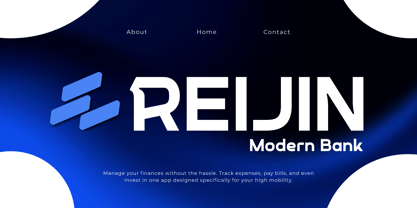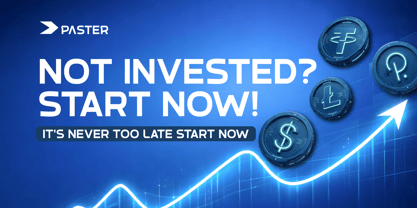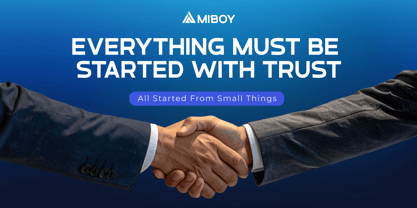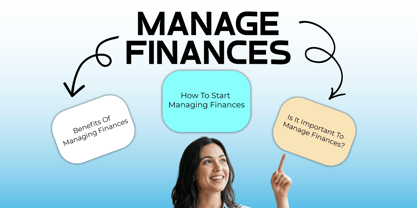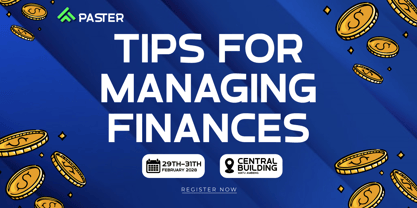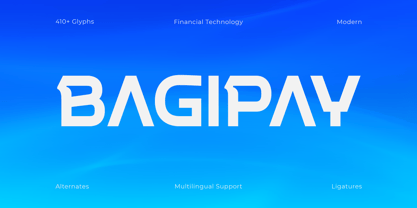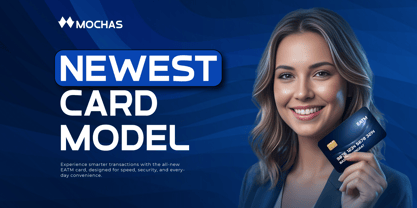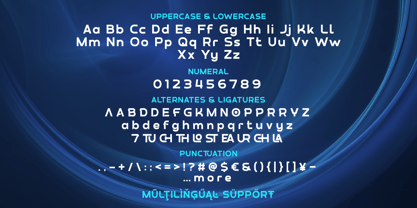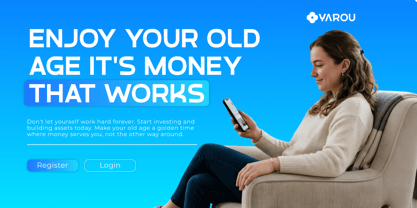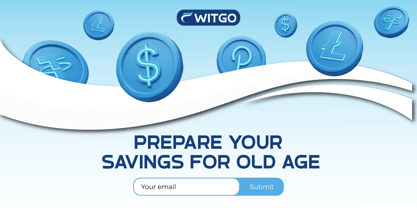
Bagipay is a Modern Sans Serif typeface specifically designed for the digital banking ecosystem and the Fintech industry. With its clean, geometric, and precise letterforms, this font delivers a professional and trustworthy impression. Its visual characteristics are ideal for building innovative yet functional visual identities for future financial platforms.
The design prioritizes technical functionality to support a seamless transaction UI experience. Inspired by Revolut's minimalist aesthetic, Bagipay ensures high legibility for the app's numbers and text, even at small sizes. This makes it a reliable solution for mobile dashboard elements, digital payment interfaces, and complex financial data graphs.
As a Modern Financial Ecosystem typography solution, Bagipay offers extensive flexibility for corporate branding, virtual debit cards, and dynamic UI/UX identity systems. Its balanced letter structure helps brands appear more credible and ready to face intense digital market competition. Bagipay is the right choice for creating a strong, secure, and technology-oriented visual impression.
- Multilingual Support: Fully supports 85+ languages, including:
Afrikaans, Albanian, Asu, Basque, Bemba, Bena, Breton, Catalan, Chiga, Cornish, Croatian, Czech, Danish, Dutch, Embu, English, Esperanto, Estonian, Filipino, Finnish, French, Friulian, Galician, Gusii, Hungarian, Indonesian, Irish, Italian, Kabuverdianu, Kalenjin, Kamba, Kikuyu, Kinyarwanda, Latvian, Lithuanian, Lower Sorbian, Luo, Luxembourgish, Luyia, Machame, Makhuwa-Meetto, Makonde, Malagasy, Maltese, Manx, Meru, Morisyen, North Ndebele, Norwegian Bokmål, Norwegian Nynorsk, Nyankole, Oromo, Polish, Portuguese, Quechua, Romanian, Romansh, Rombo, Rundi, Rwa, Samburu, Sango, Sangu, Scottish Gaelic, Sena, Serbian, Shambala, Shona, Slovak, Slovenian, Soga, Somali, Spanish, Swahili, Swedish, Swiss German, Taita, Teso, Turkish, Upper Sorbian, Uzbek (Latin), Volapük, Vunjo, Walser, Zulu.